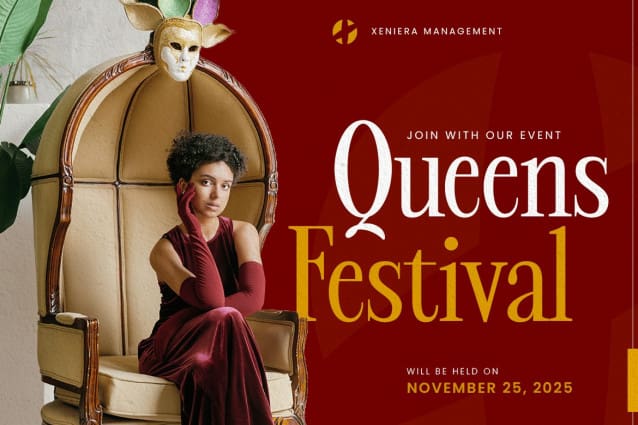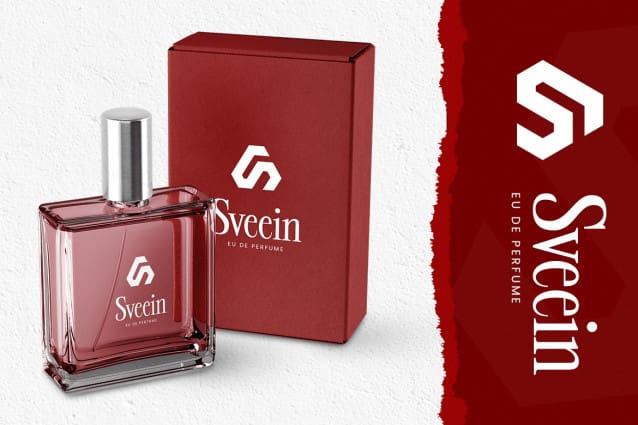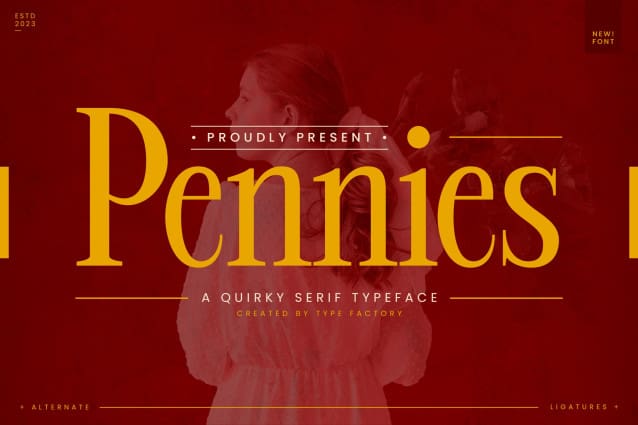
Pennies Font
Pennies Font is a playful and quirky serif font that brings a fun and whimsical touch to any design. With its charming irregular letters and unique character, Pennies is perfect for creative brands, posters, children’s books, and any project that needs a touch of personality. This font combines classic serif elements with a lively and quirky style, making it stand out in both print and digital designs. Pennies adds a touch of playfulness and lightness, ensuring that your work is memorable and engaging.